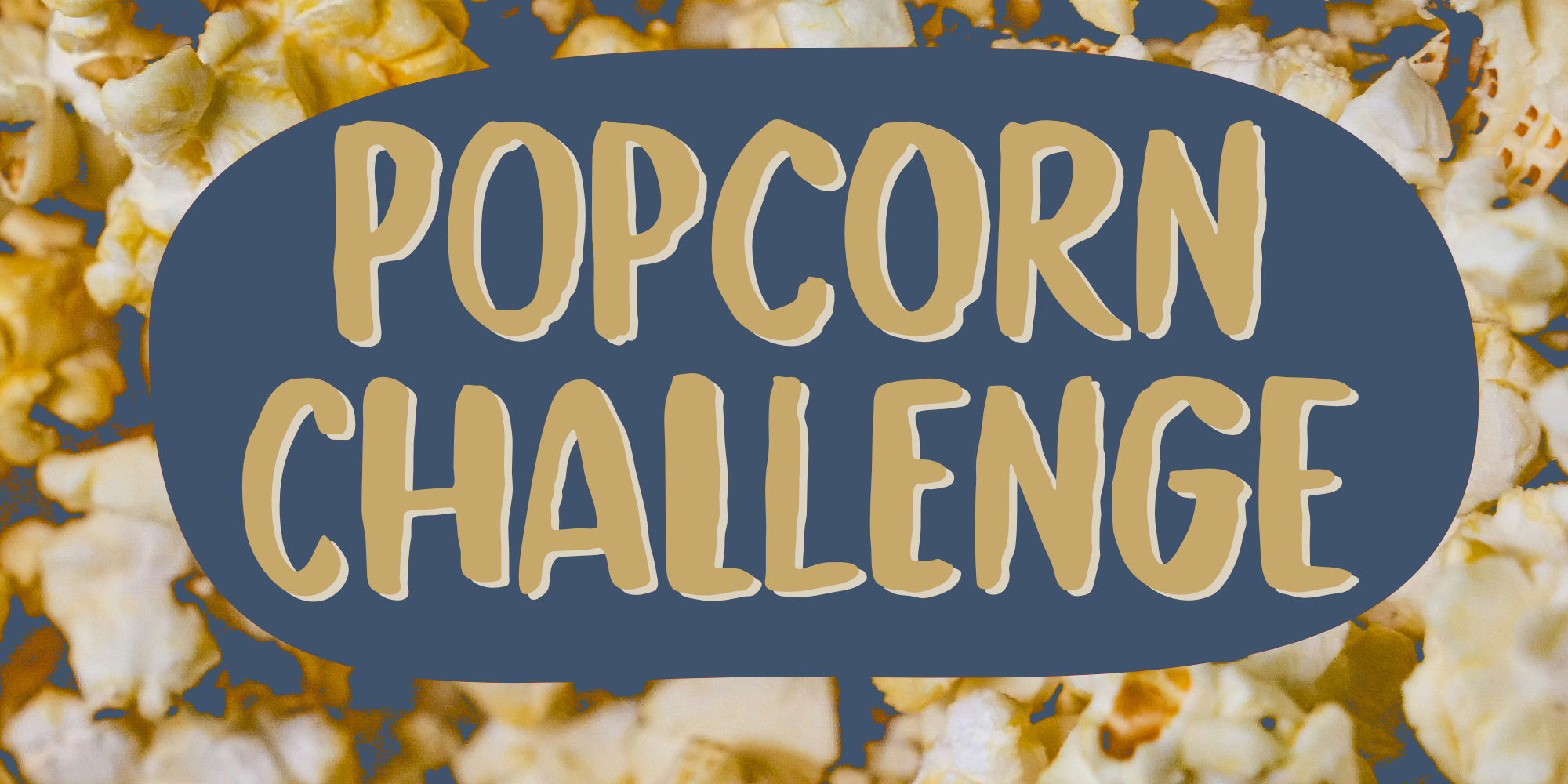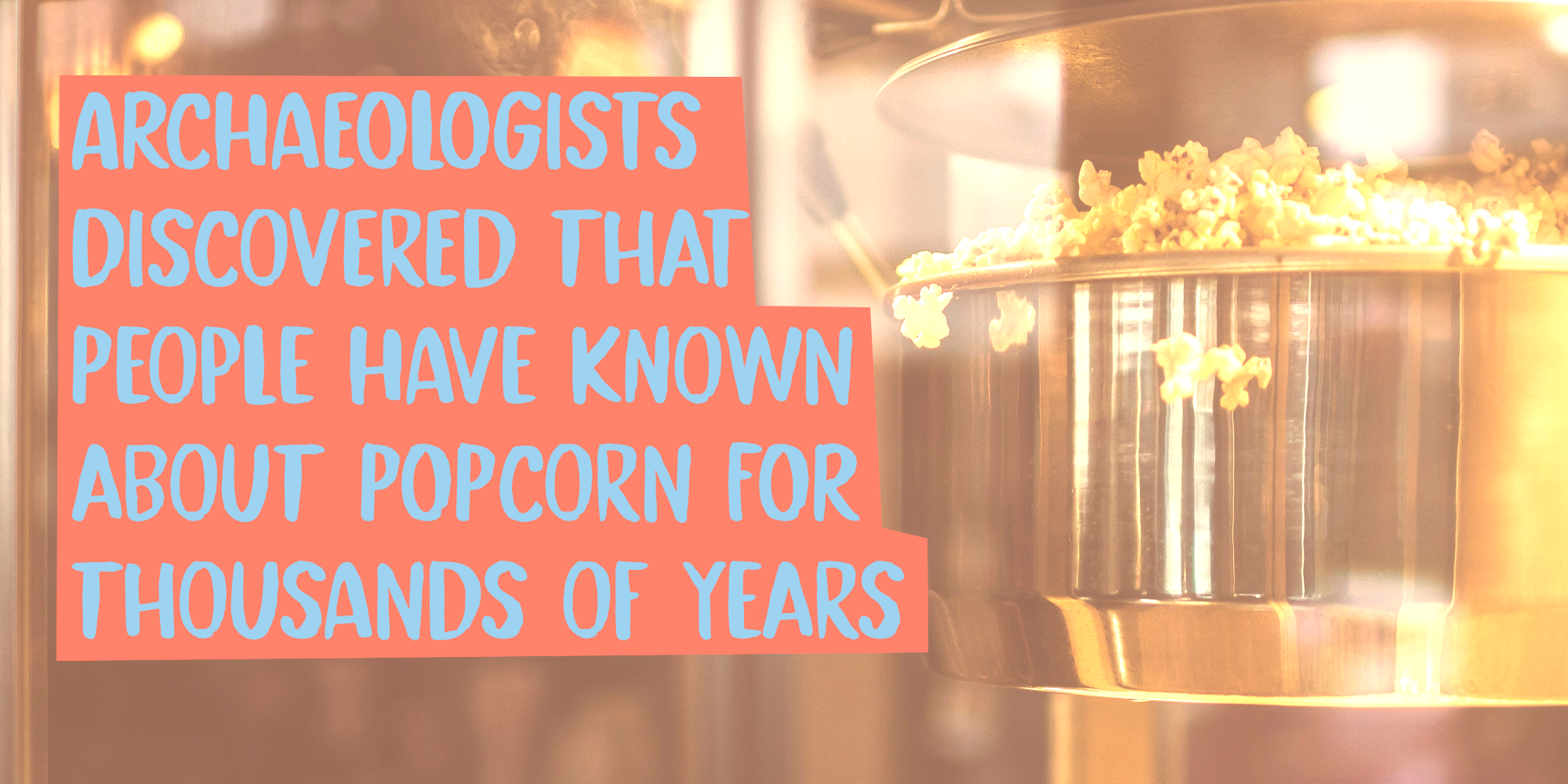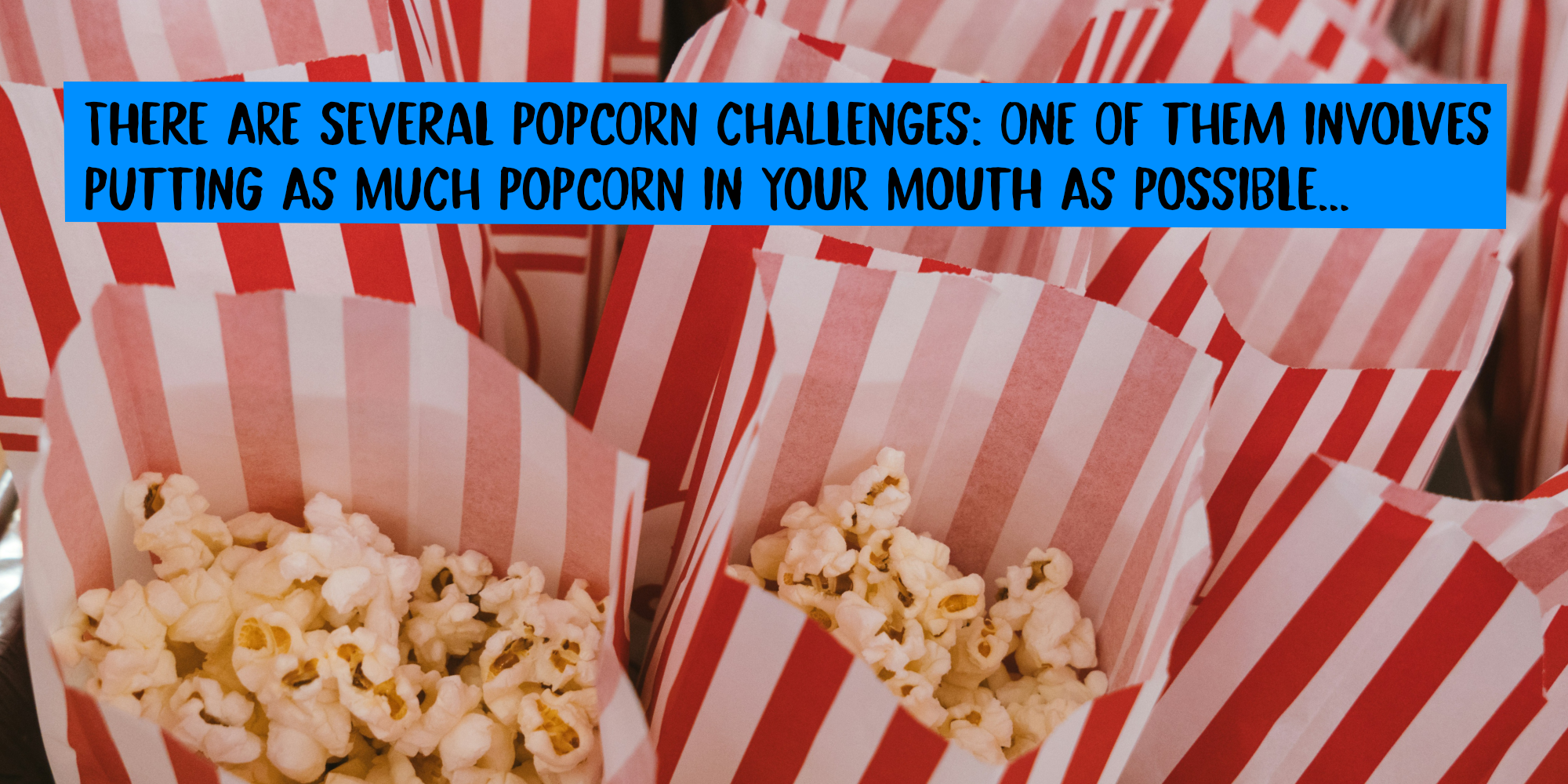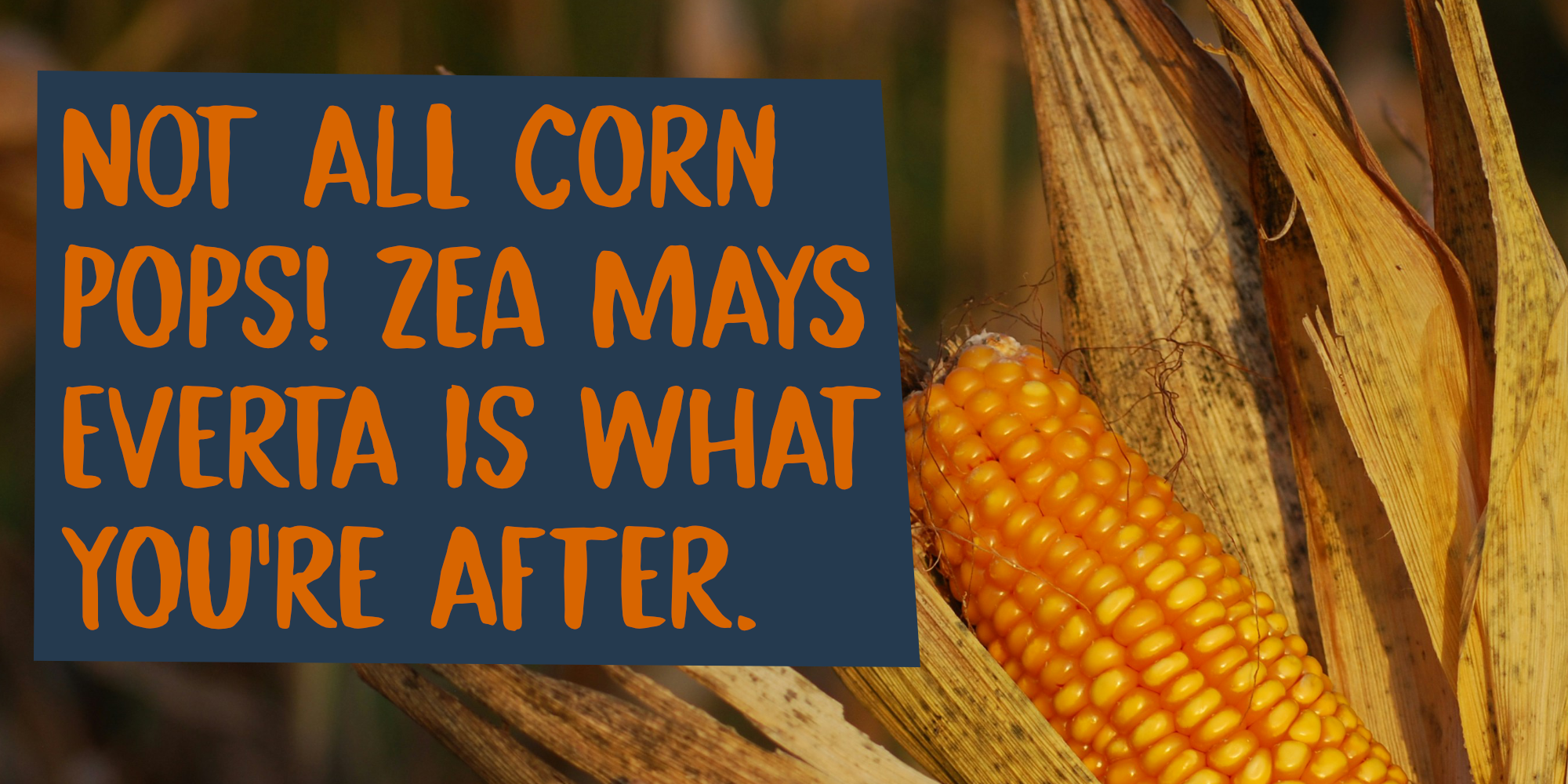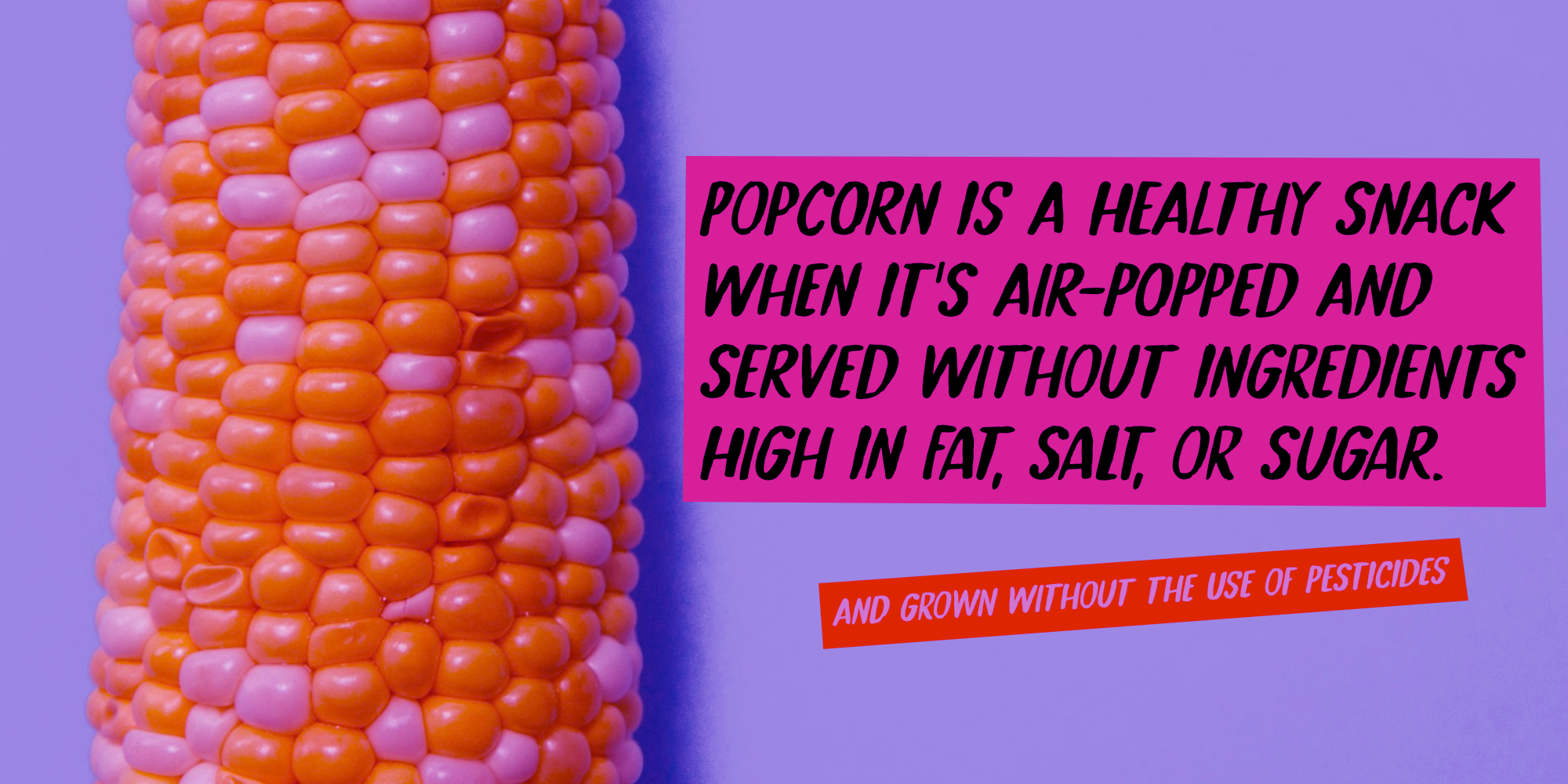
Popcorn Challenge (2 fonts)
Popcorn Challenge is a font I made with a horse-hair brush and Chinese ink. It comes with extensive language support and a set of alternates for the lower case glyphs.